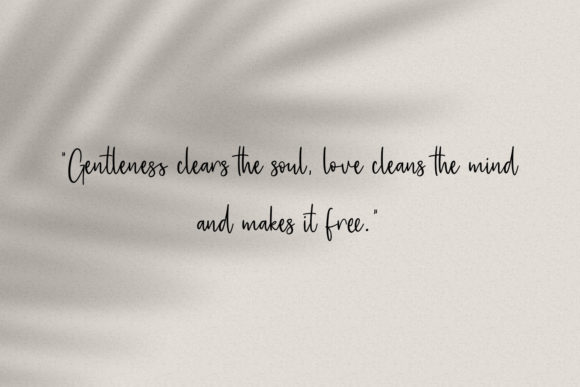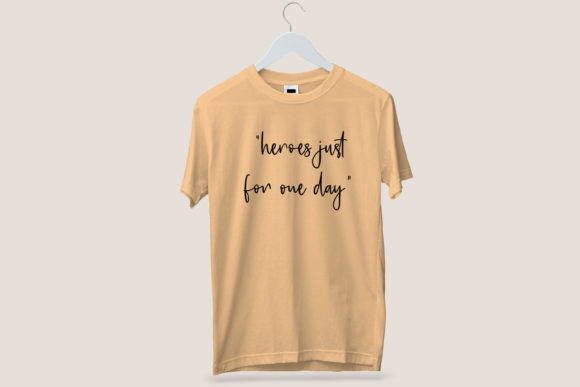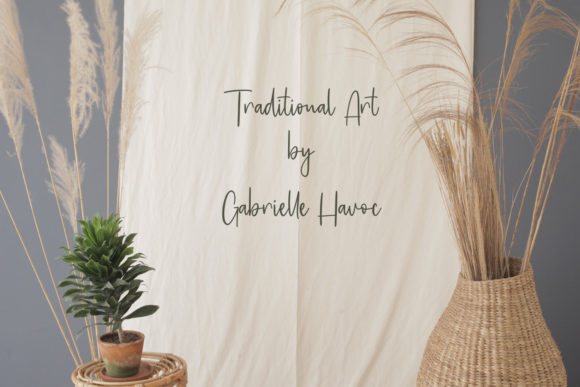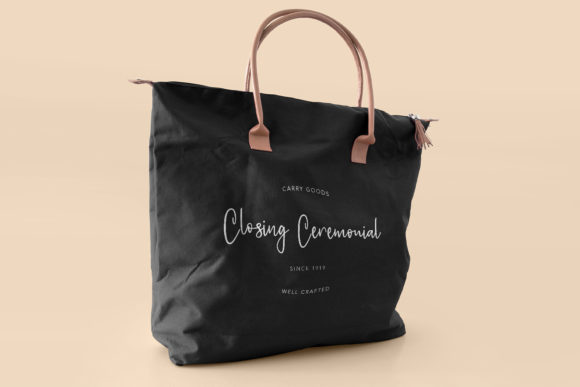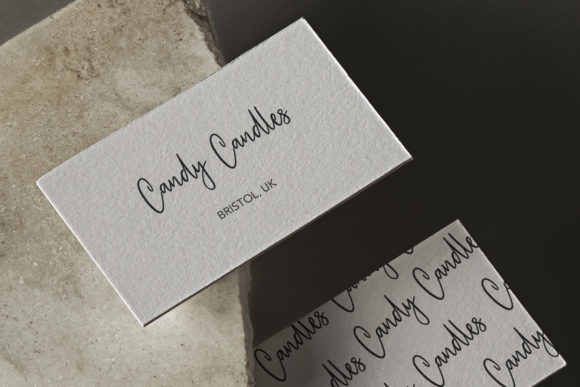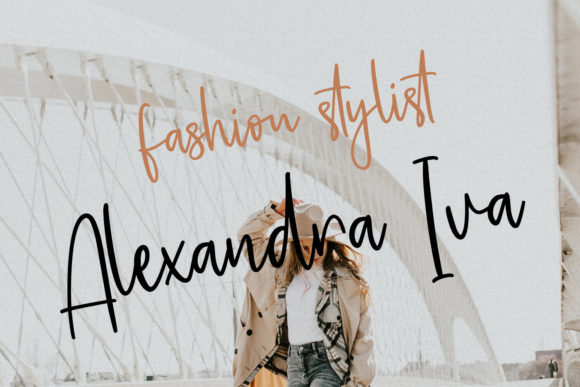
Introduction to Homeytasty Font
Have you ever stared at a blank page, eager to bring a creative project to life, but struggling to find the perfect font to set the tone? That’s where the Homeytasty Font comes in – a game-changing script font designed to elevate your design and leave a lasting impression.
As a designer, you know how important it is to have a reliable design resource that can adapt to any project. With its balanced and varied style, the Homeytasty Font is the perfect addition to your arsenal. Whether you’re working on a personal or professional project, this high-quality font is sure to make your design stand out. Plus, with its transparent background, you can easily overlay it on any image or background, giving you endless creative possibilities.
Key Features of Homeytasty Font
- High-quality font design ideal for creative projects, including graphics, logos, and branding materials.
- Designed with a unique and stylish aesthetic, perfect for adding a touch of sophistication to any creative project.
Honest Review: Homeytasty Font
One of the standout features of this font is its transparent background, making it easy to layer with other design elements. The font itself is high-quality and looks great in both digital and print projects. ✨
The Homeytasty Font comes in a range of weights and styles, giving you plenty of options to choose from. Some of the key features include:
- High-quality design for creative projects
- Available in multiple weights and styles
While I do love the Homeytasty Font, there are a few limitations to keep in mind. The font is not as extensive as some other popular fonts, and some of the weights may not be as versatile. ⚠️
Overall, I’m impressed with the Homeytasty Font and would definitely recommend it to fellow designers. It’s a great addition to any design library, and I’m sure you’ll find it useful for your next creative project.
Tips for Getting the Most Out of Homeytasty Font
To maximize the impact of Homeytasty Font, experiment with different font sizes, colors, and styles. Combine it with other design resources, such as graphics and textures, to create visually appealing designs. Don’t be afraid to push the boundaries and try new things – the Homeytasty Font is a versatile design resource that can help take your creative project to the next level.
Common Use Cases for Homeytasty Font
Homeytasty Font is ideal for a variety of creative projects, including branding, marketing materials, and digital art. Its high-quality design makes it perfect for use in logos, posters, and other visual elements that require a touch of sophistication and elegance.
When compared to Homeytasty Font, Great Vibes is more versatile and can be used in a wider range of design projects. While Homeytasty Font is more playful and fun, Great Vibes is more sophisticated and refined.